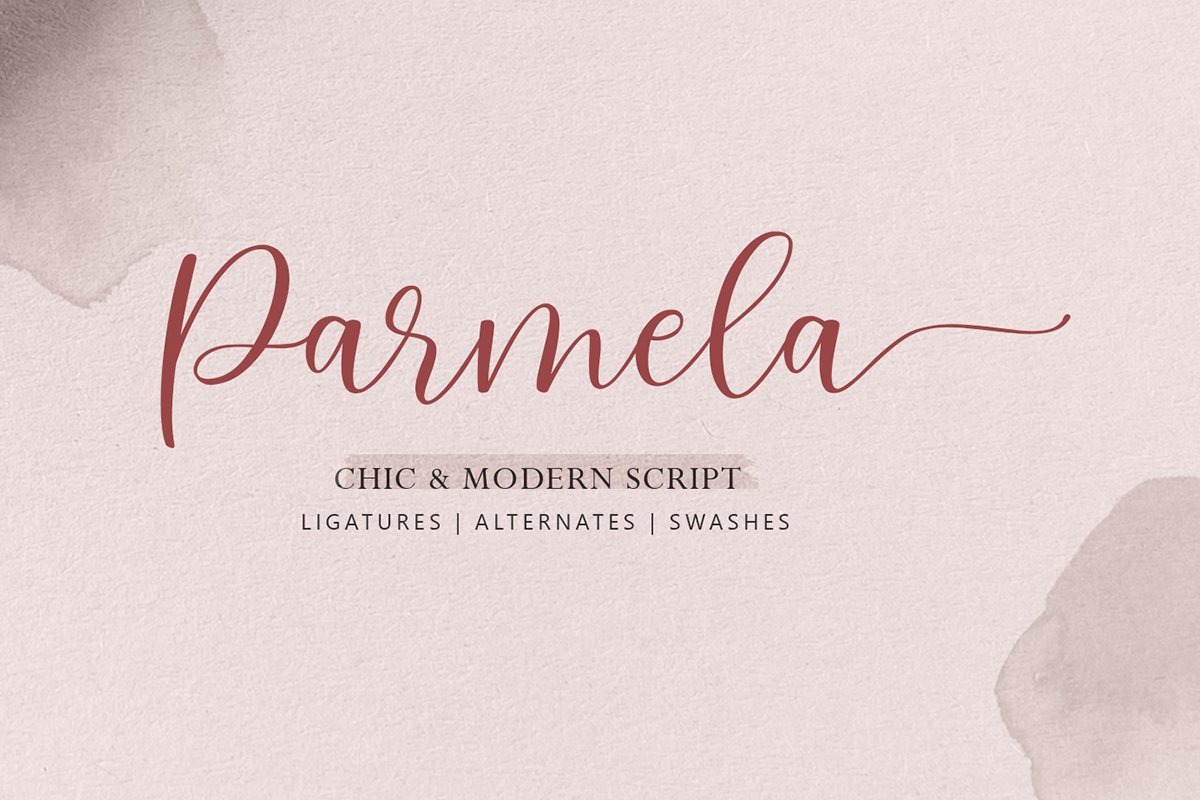
Parmela - Chic Modern Script
Parmela  is a beautiful script font with Opentype features. It has a classy, elegant, and modern look which can be used for invitations, labels, restaurant menus, logos, fashion, branding, wedding designs.
You will get a complete set of uppercase and lowercase, multilingual, punctuation, ligatures, stylistic alternates a-z.